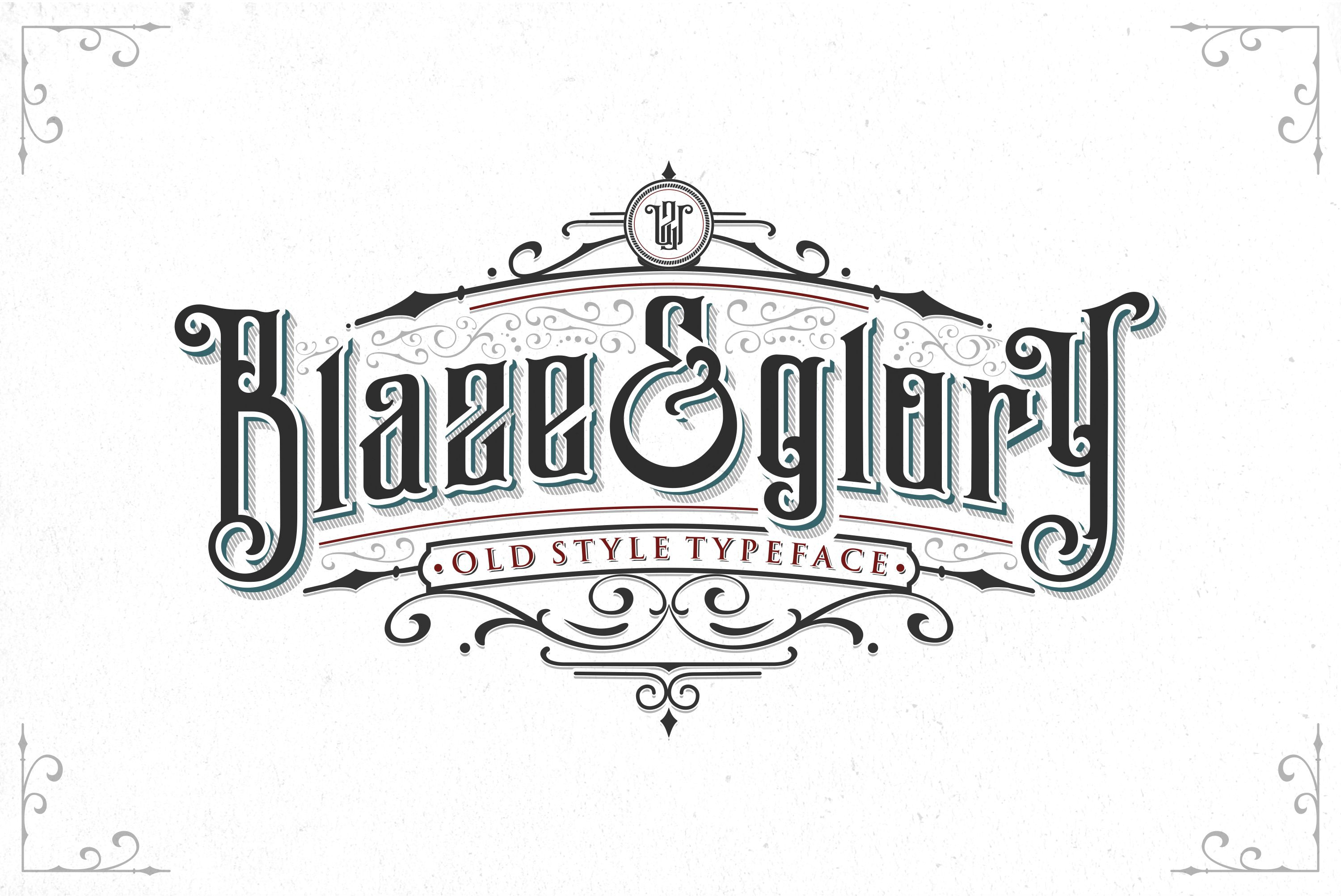
Blaze & Glory Typeface + Extras
Blaze & Glory Typeface is the first commercial typeface from Zerowork Studio. With classic, elegant, vintage, and clean feel. Come with 2 styles regular one and drop shadow style. Also with some catchwords and ornament to adding more aesthetics of your designs.
Blaze & Glory Typeface Supported :
- Character Set A-Z
Blaze & Glory Typeface is suitable typeface for various purposes like logotype, signage, label, poster, dropcap, titles, letterhead, book cover and etc.